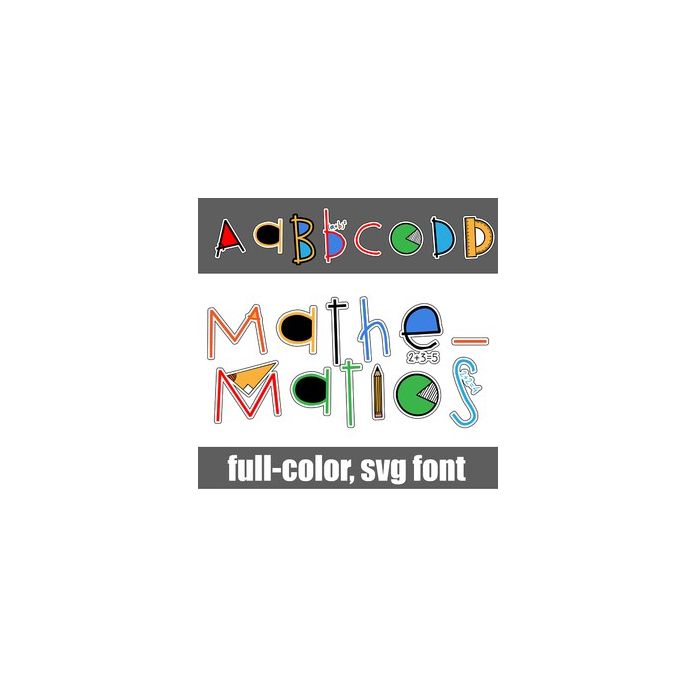
This full-color font features childish lettering and lots of math symbols. There is an alt case w/ additional colors you can access through your system or Silhouette's glyph map.